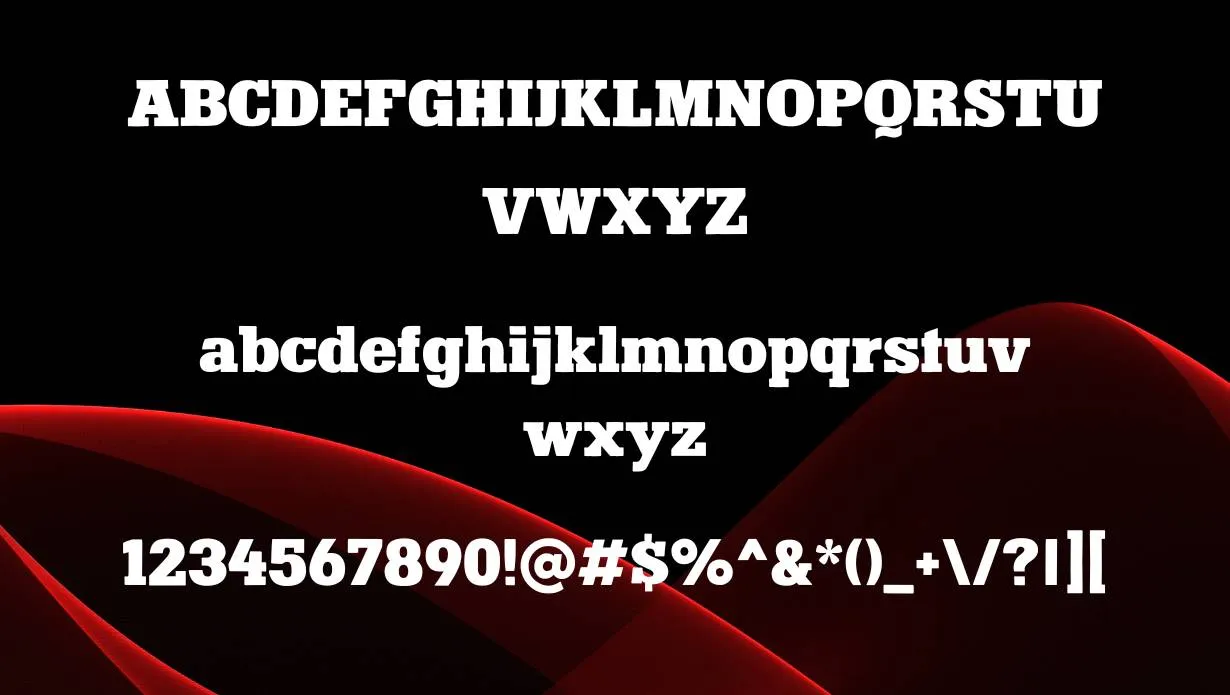
The Sufler font is recognized for its artistic and unconventional design, often sought after for avant-garde or creative projects. It aims to provoke curiosity and captivate attention, making it an intriguing choice for designers looking to create visually captivating and original text elements in their designs.
| Name | Sufler Font |
| Designer | Bartek Nowak |
This font’s uniqueness lies in its ability to bring an unconventional and artistic feel to various design endeavors.